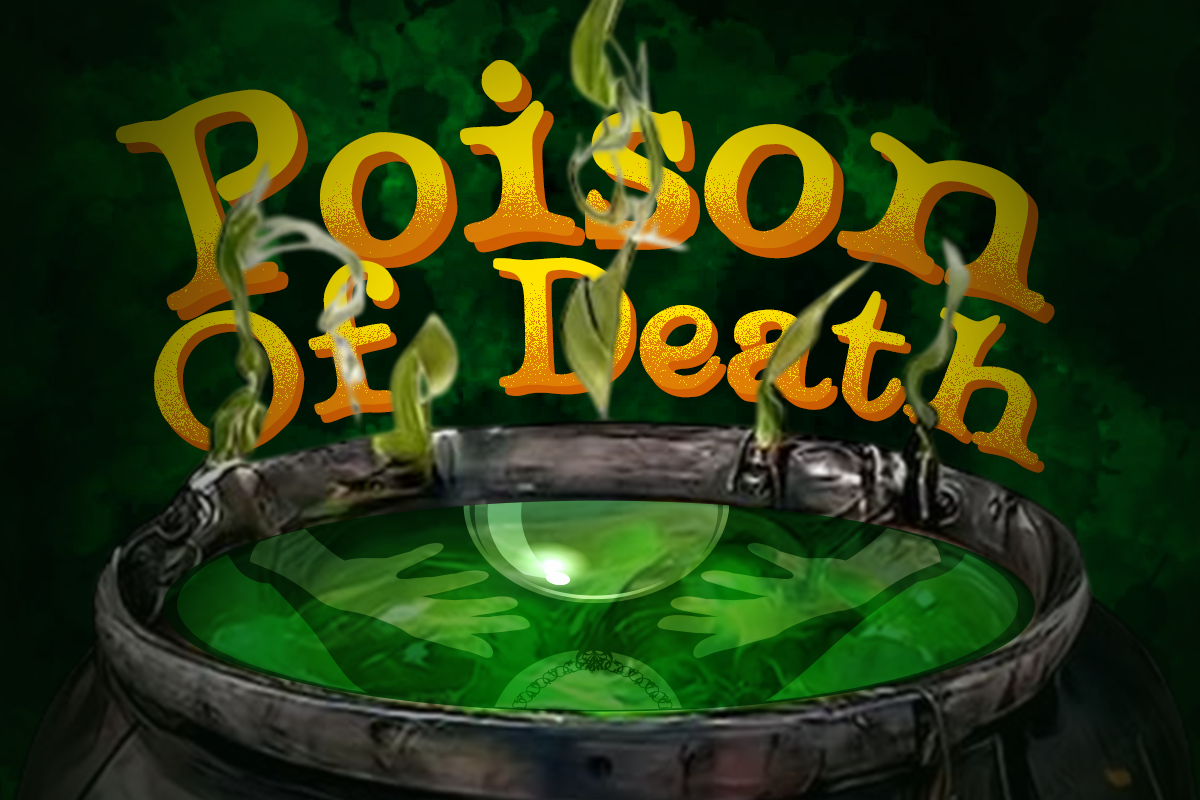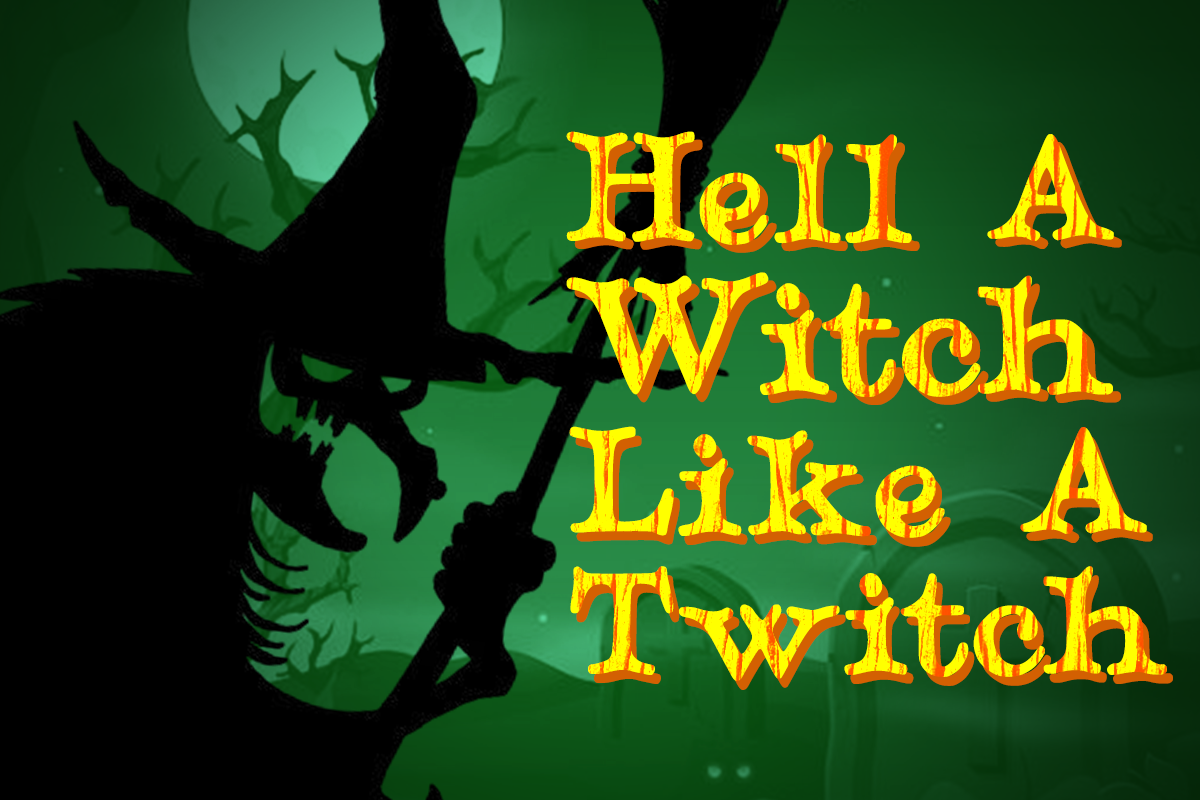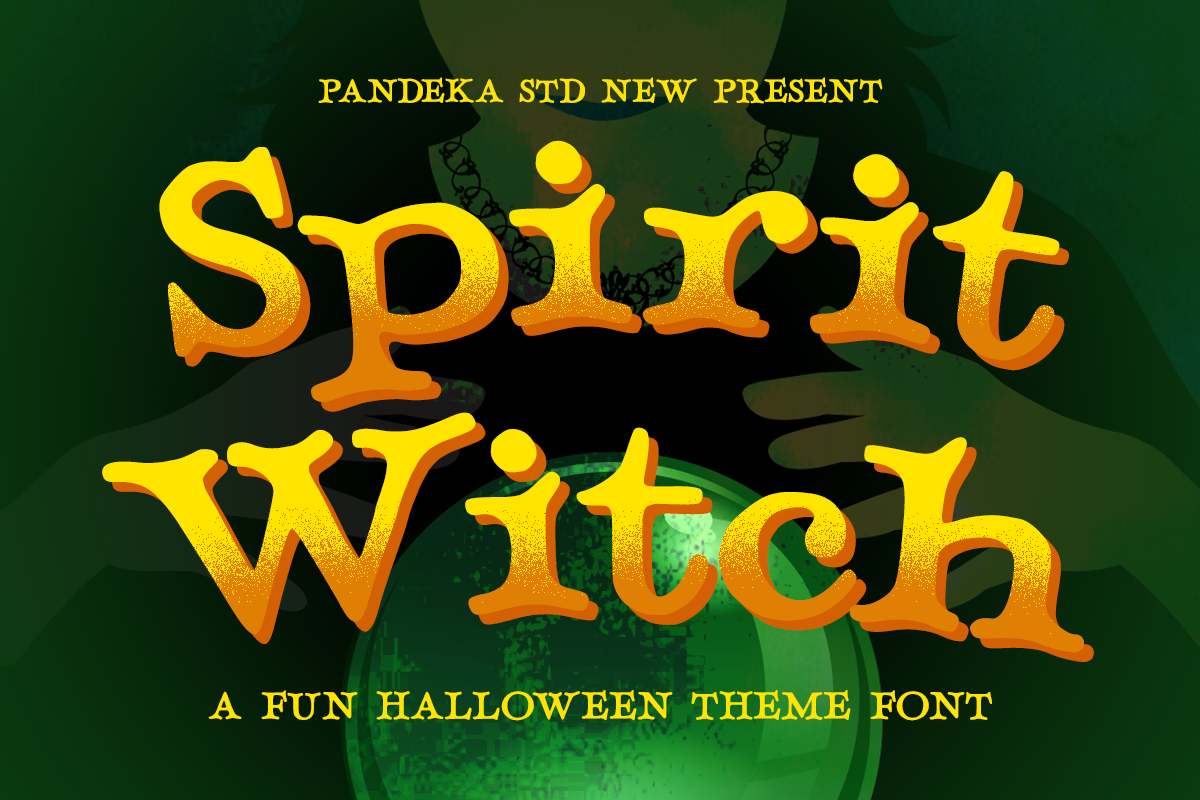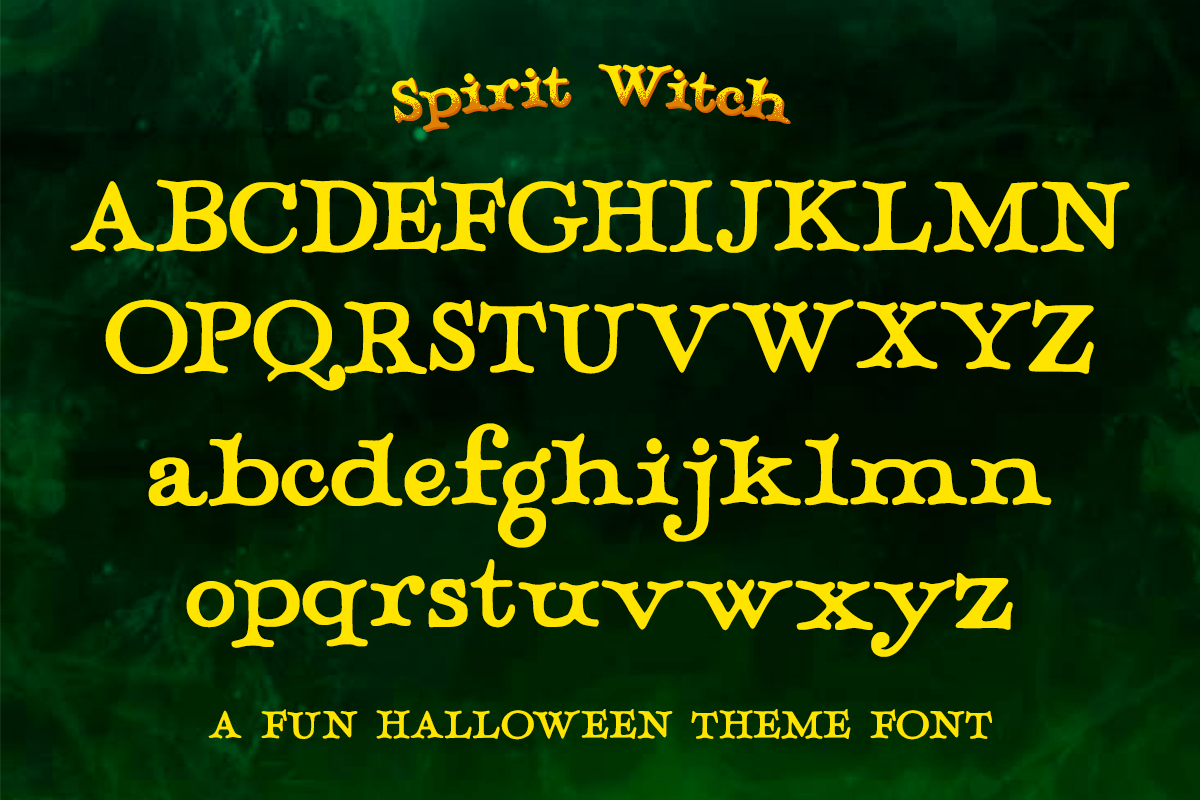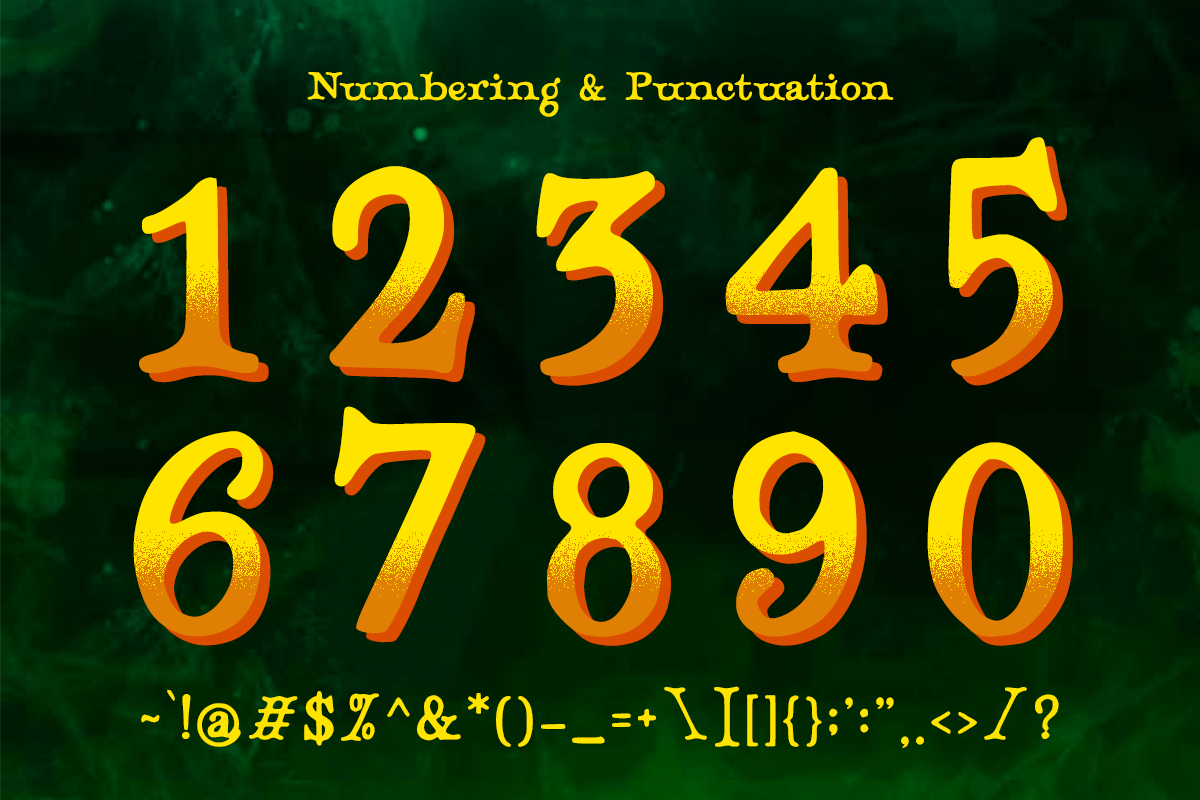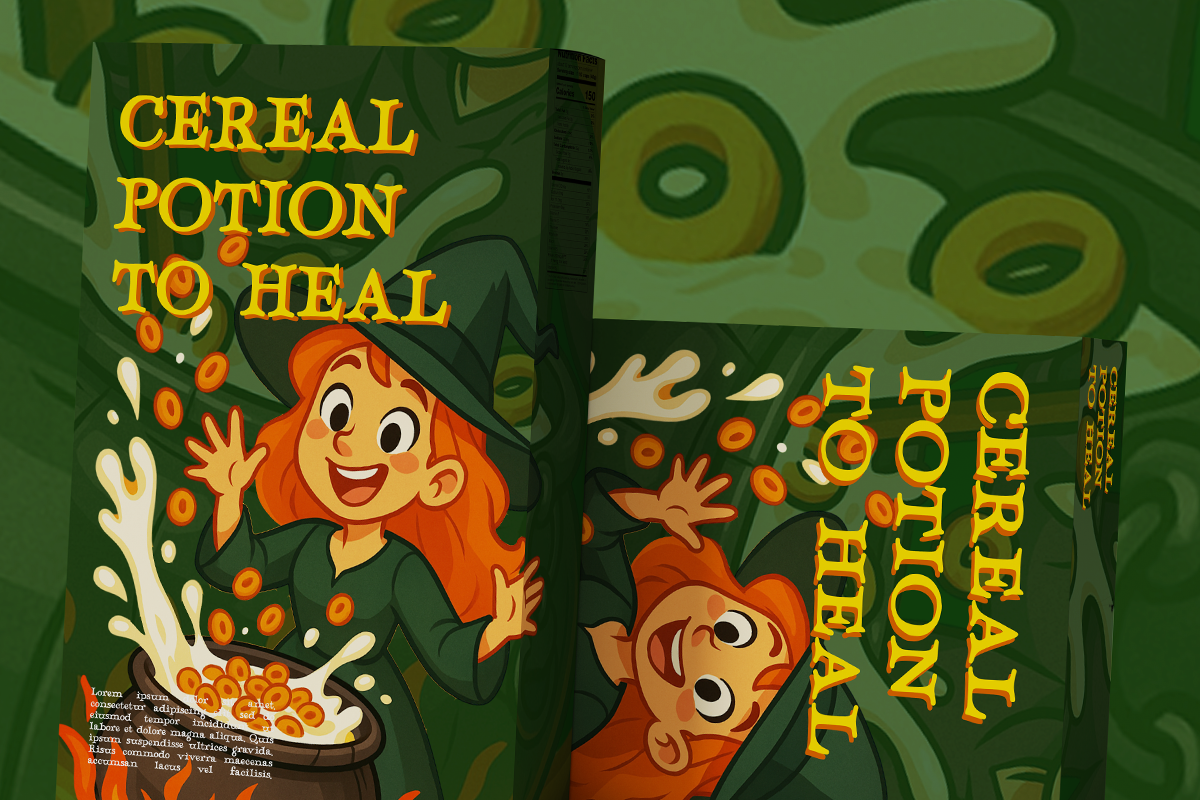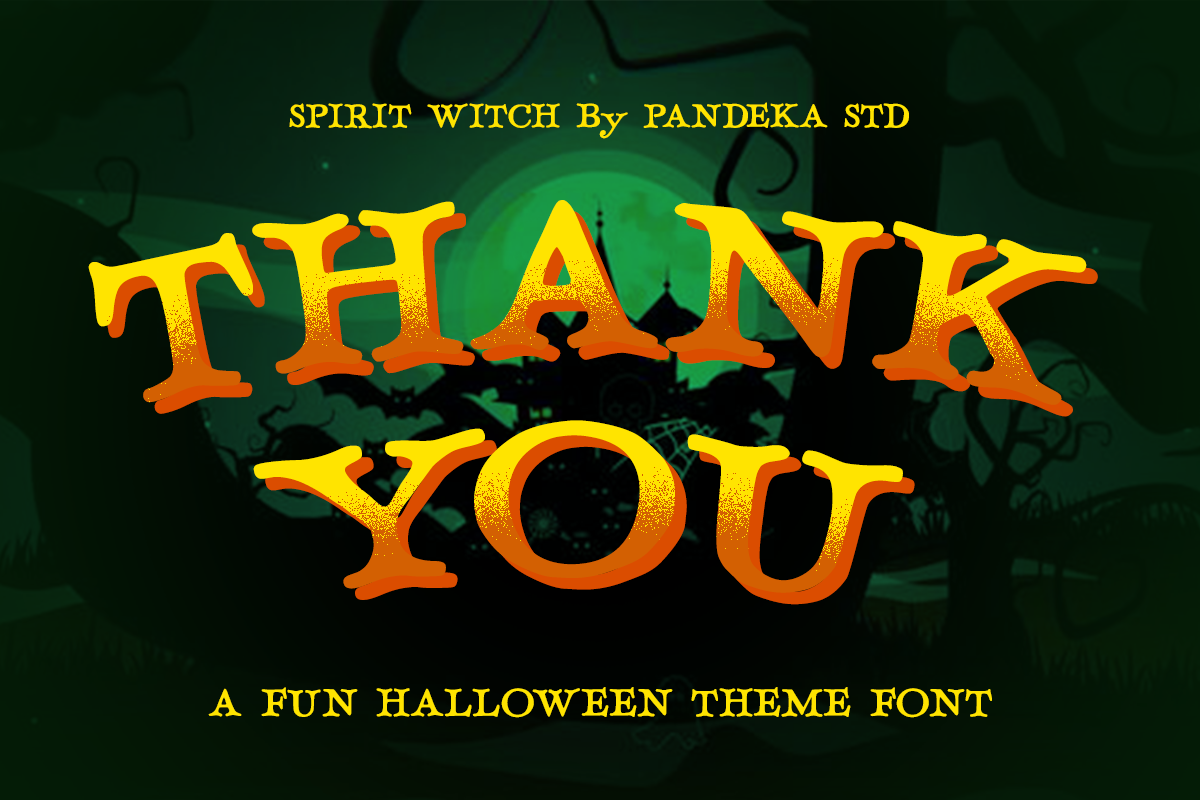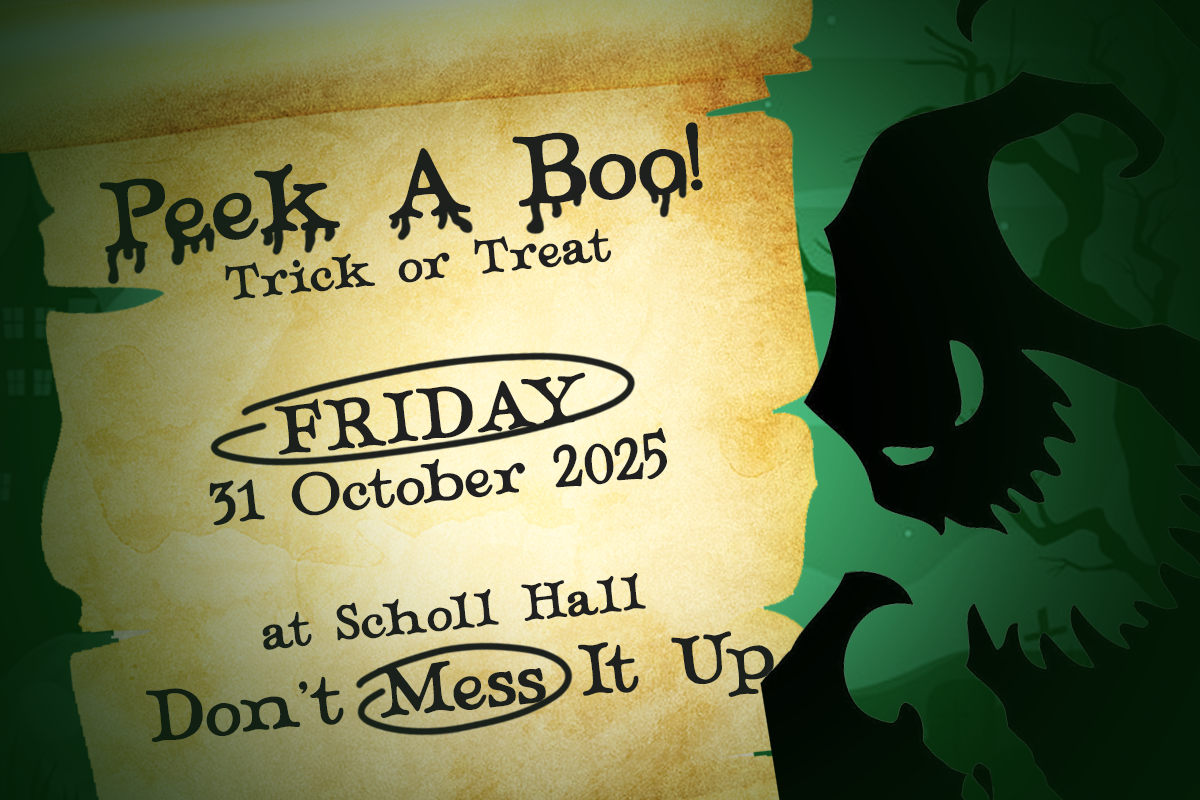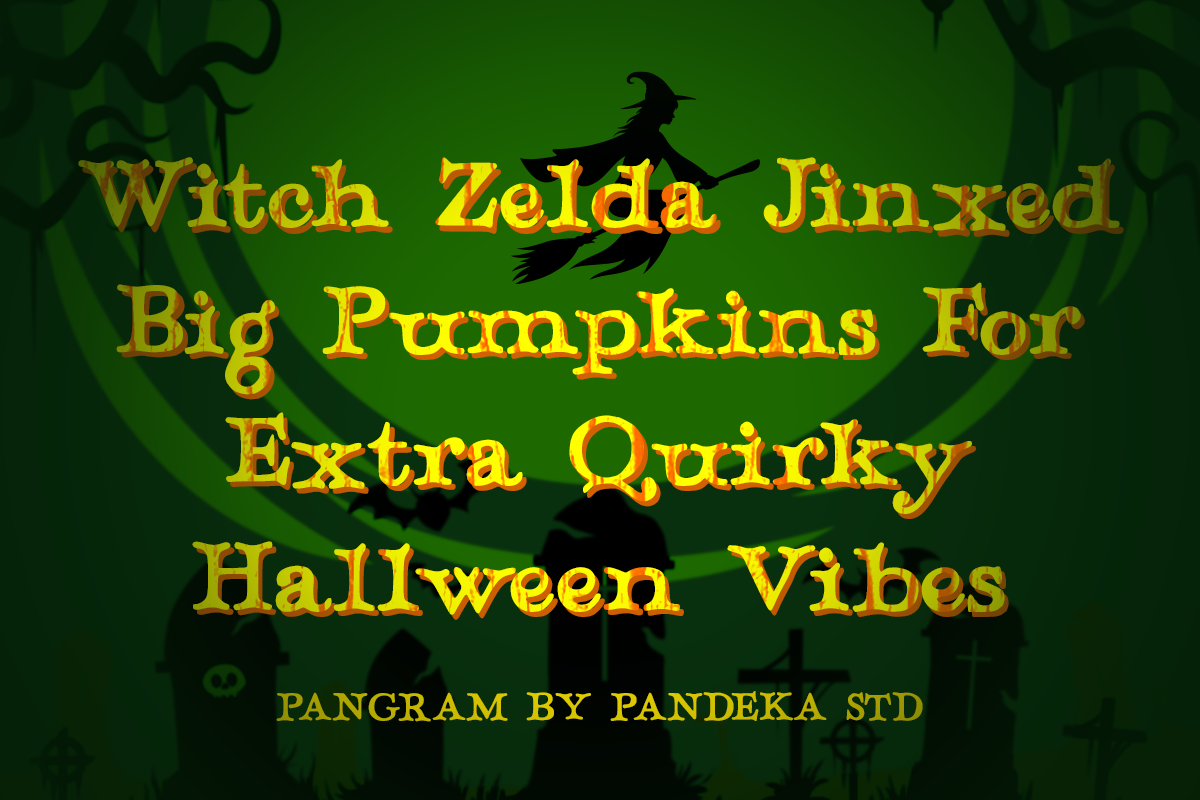
Spirit Witch - A Fun Halloween Font
Spirit Witch is a whimsical Halloween-themed display font that oozes spooky personality and animated mischief. With playful curves, eerie edges, and cartoon-style flair, it’s perfect for capturing the haunted fun of October. Spirit Witch combines vintage horror vibes with a light-hearted twist, making it ideal for party invitations, trick-or-treat posters, creepy product packaging, spooky book covers, and all things wickedly festive.
Its hand-drawn look brings out a nostalgic, storybook feel, while maintaining high readability. Whether you're brewing up magic for branding, a Halloween event, or a seasonal promo, this font turns every word into a spell.
- Full Character Set: Uppercase, lowercase, numbers, symbols, and punctuation